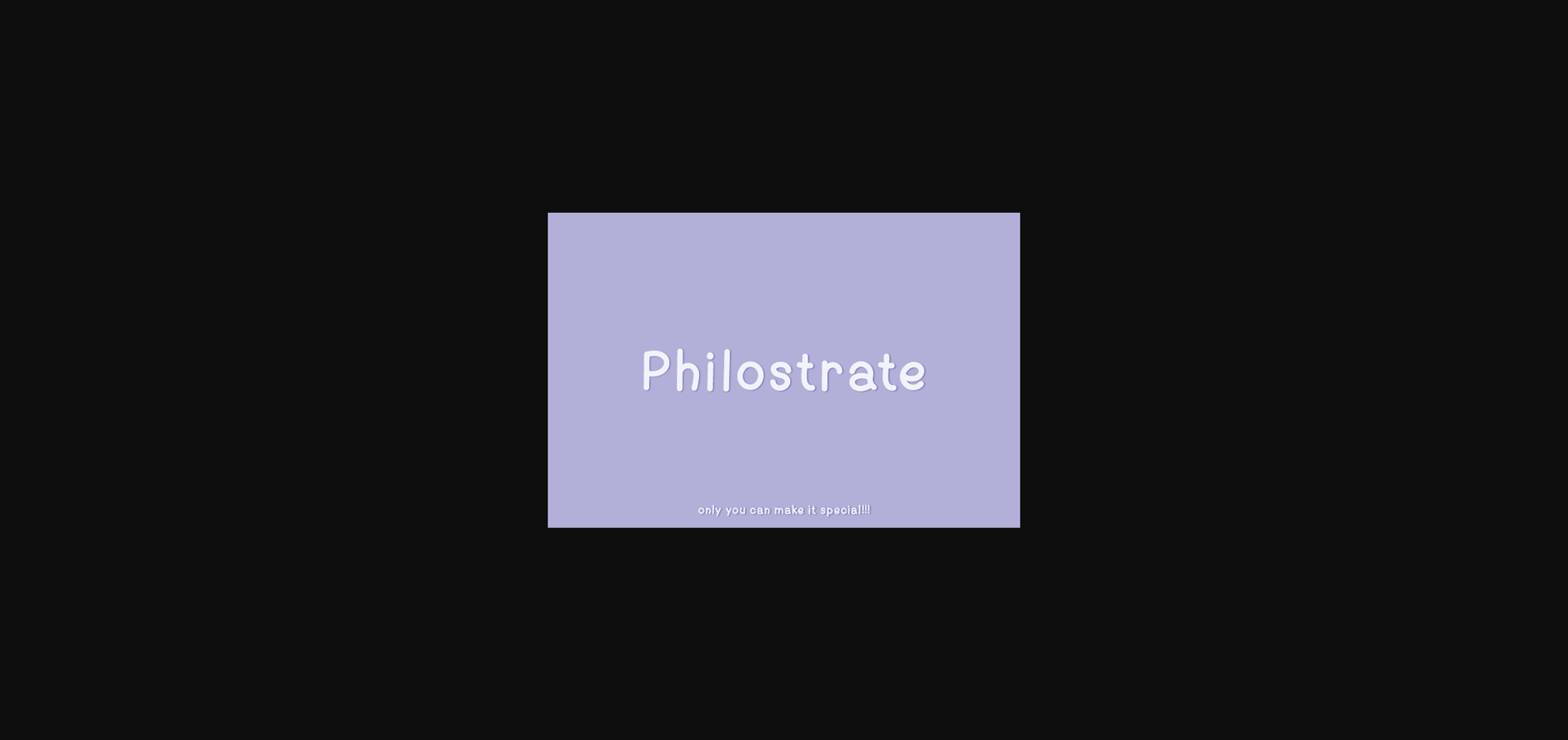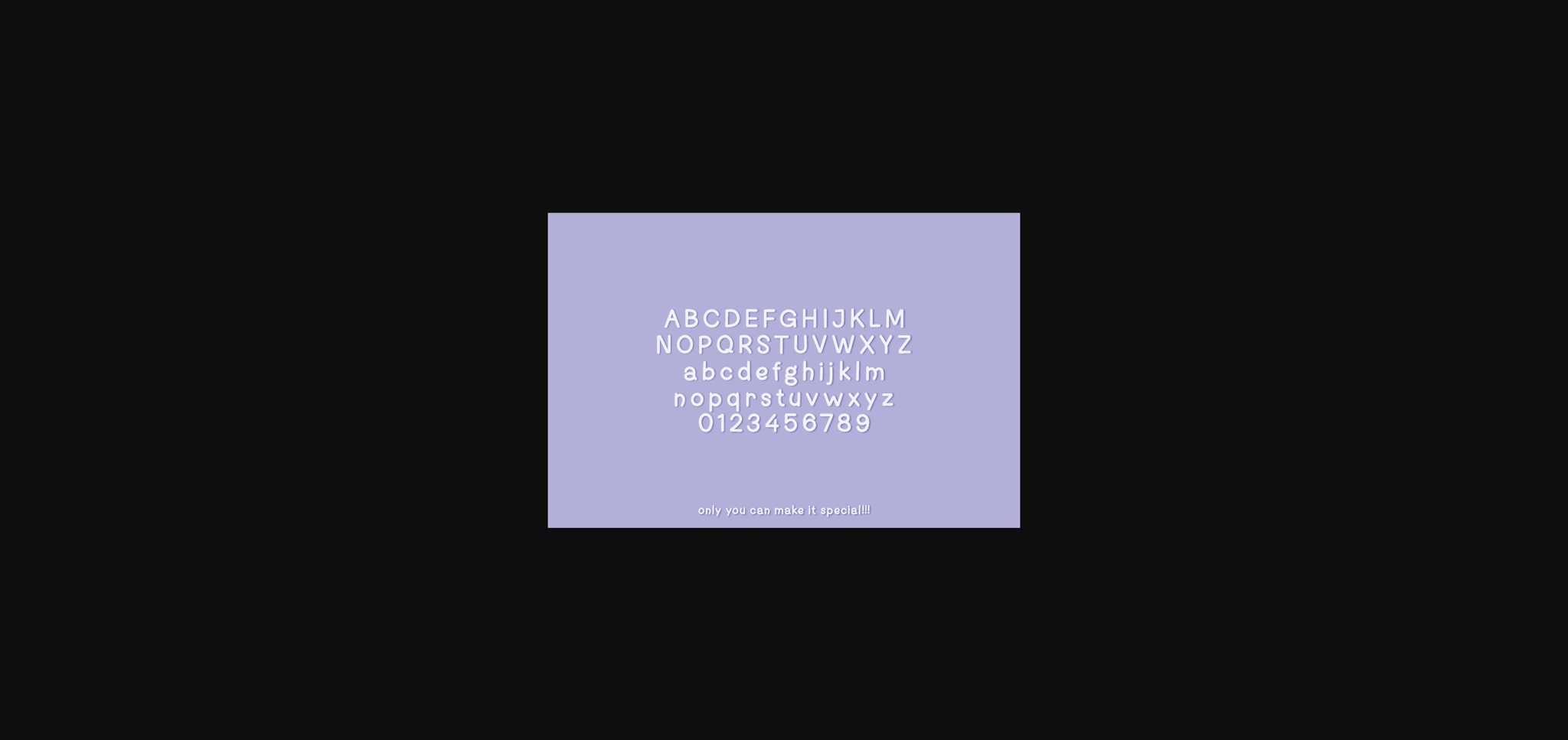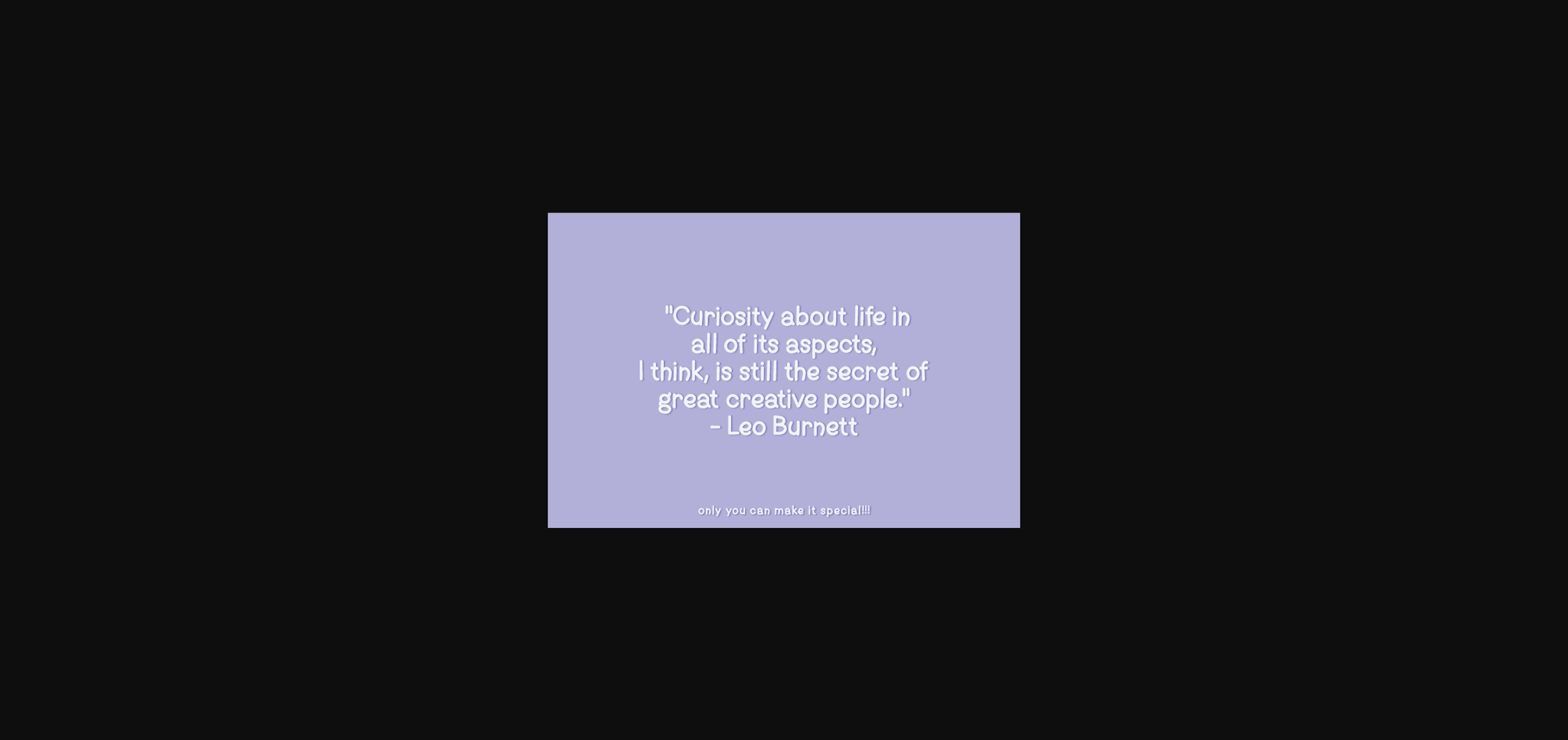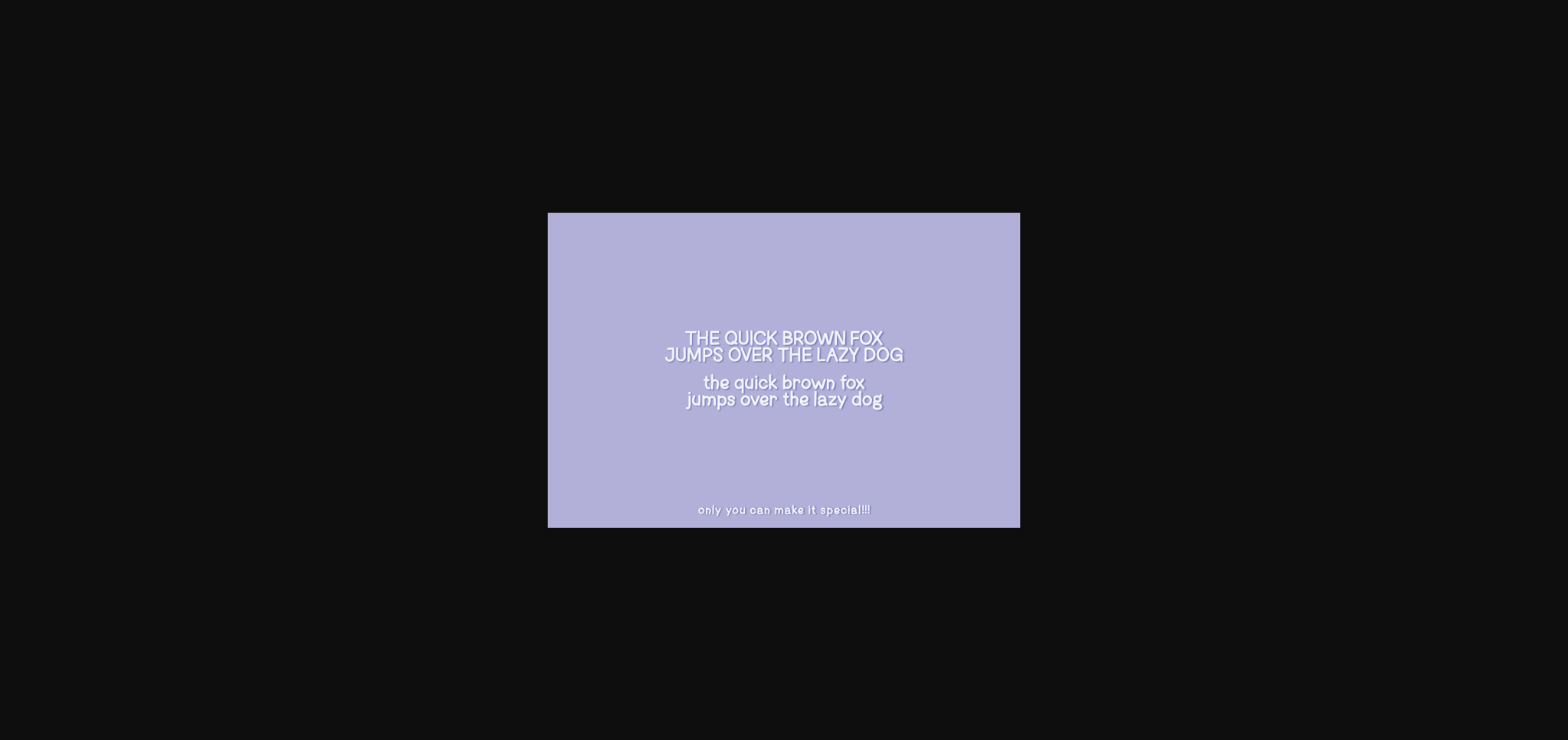
Philostrate Font
About Philostrate Font
Philostrate is a natural sans serif font made without changing a single node in each character’s indentation – this makes this font very interesting and unique. Perfect for quotes, notes, tees, and any product design.